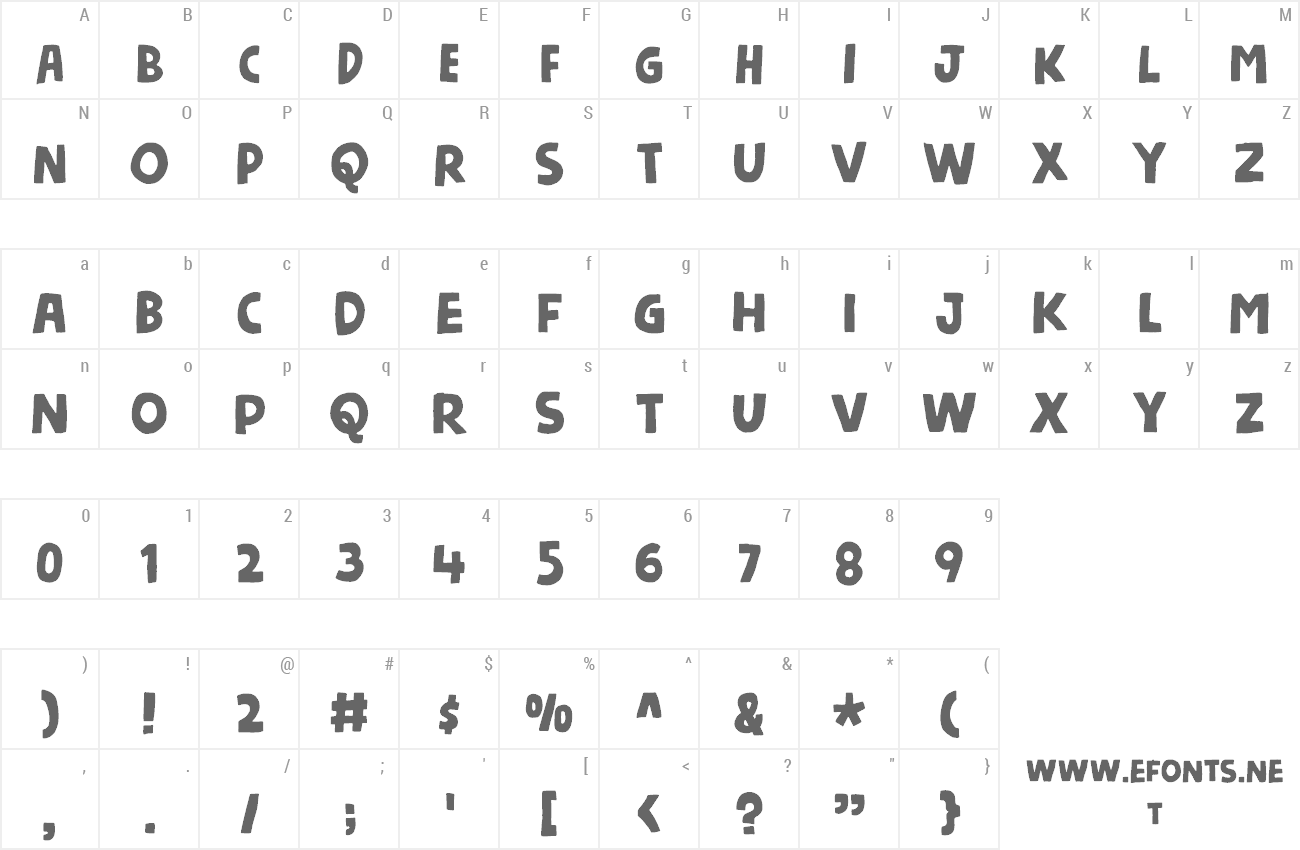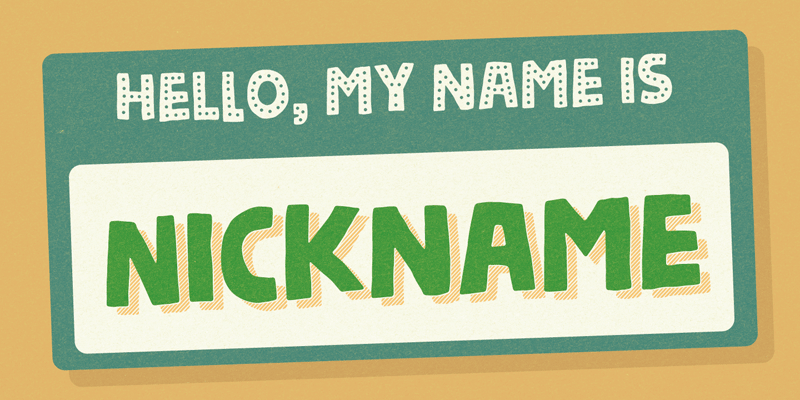
Preview and download Nickname Font. Created by Pizzadude in Fancy Cartoon styles with Free for personal use license.
What’s your nickname? I guess we all have had some kind of nickname...some of us even still has! This font is called Nickname, and you can nickname it whatever you please...maybe nicknames like playful or funky comes to mind?! The font Nickname comes with extended language support as well as ligatures for double letters - and that goes for all seven different versions of the font! Yes SEVEN different versions! Mix and match to get that authentic handmade feeling ... well, since the font IS handmade, all you need to do is play around with the different versions! :) Shareware version: http://www.myfonts.com/fonts/pizzadude/nickname/ |